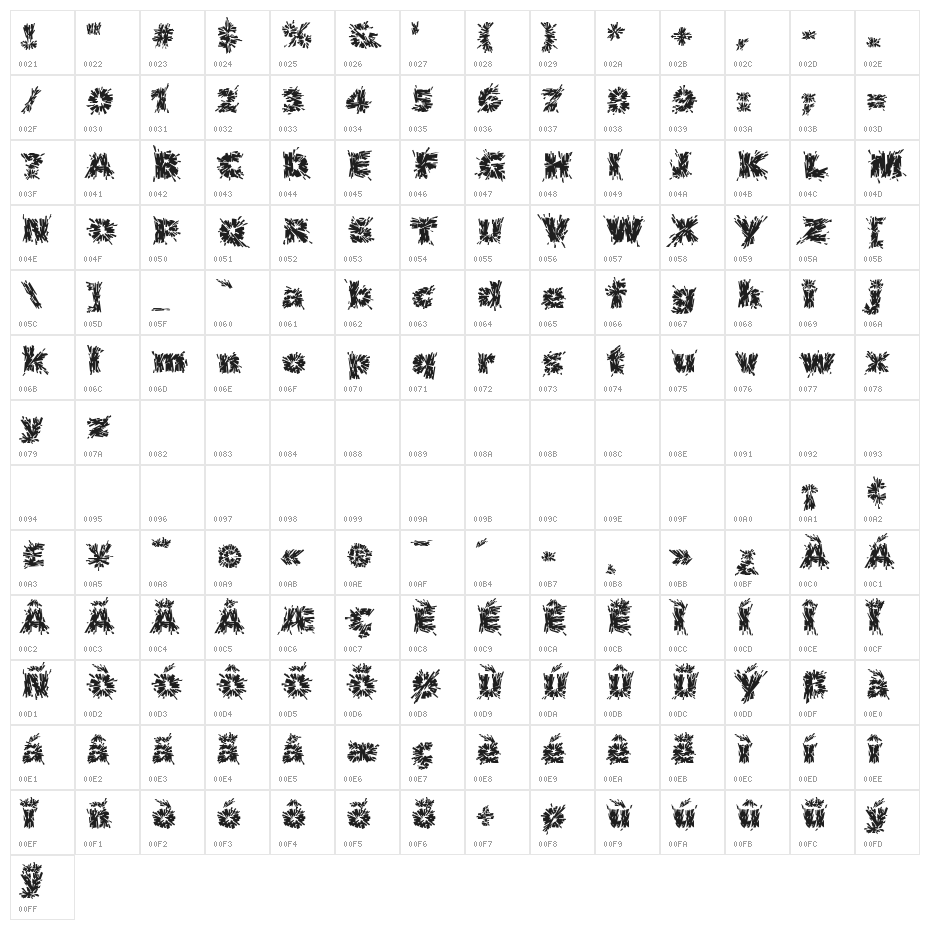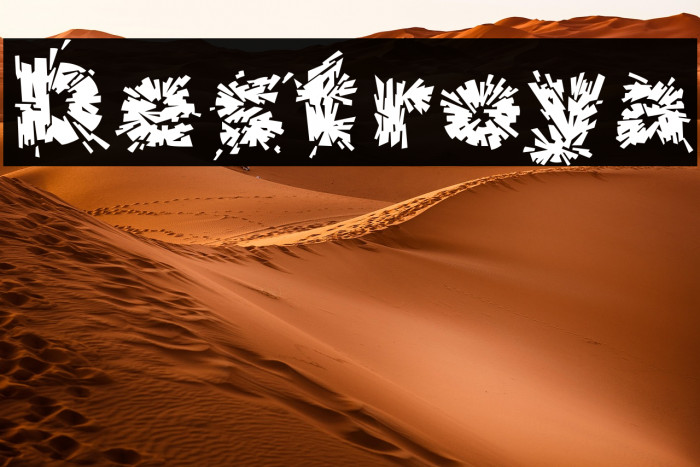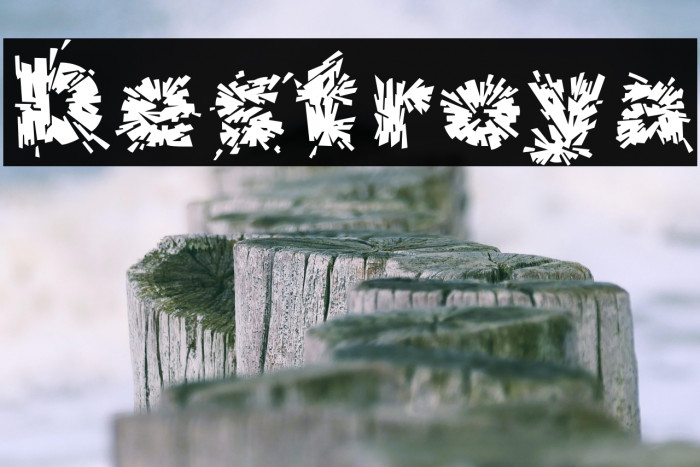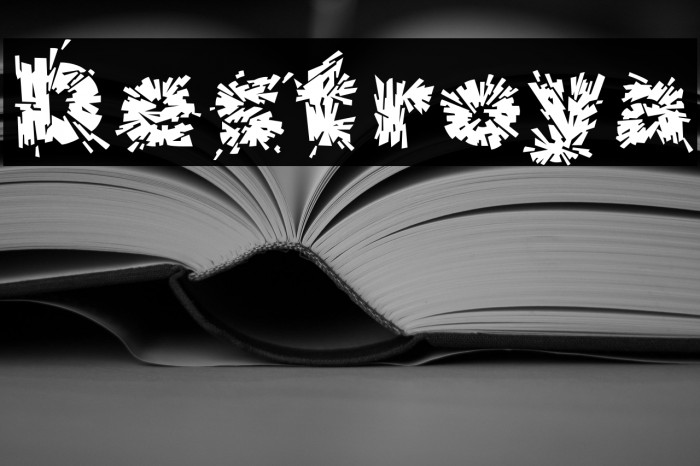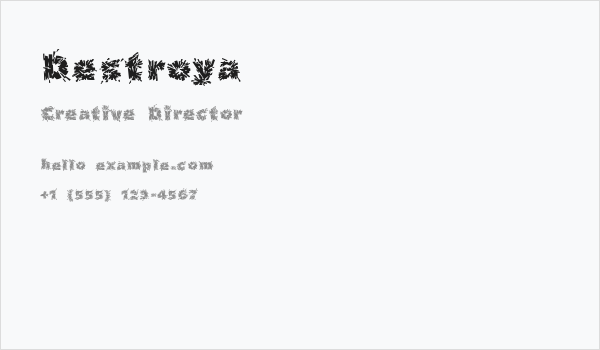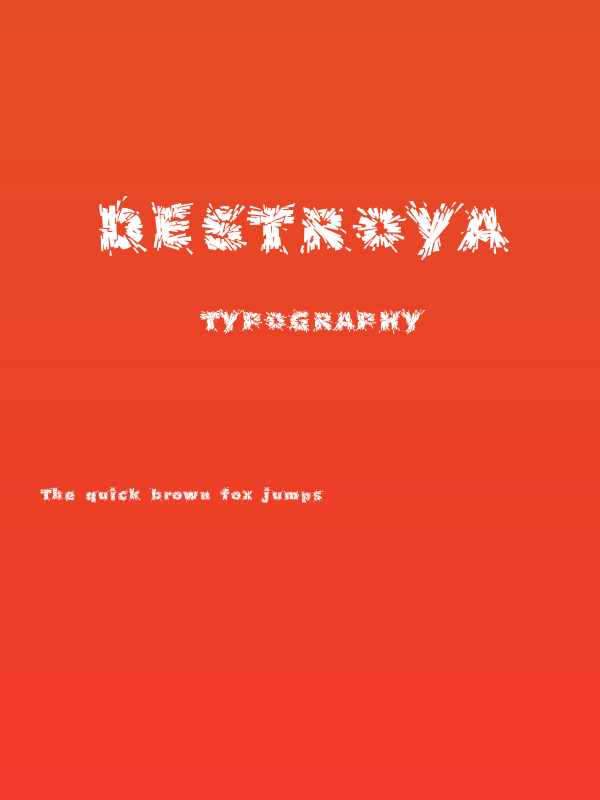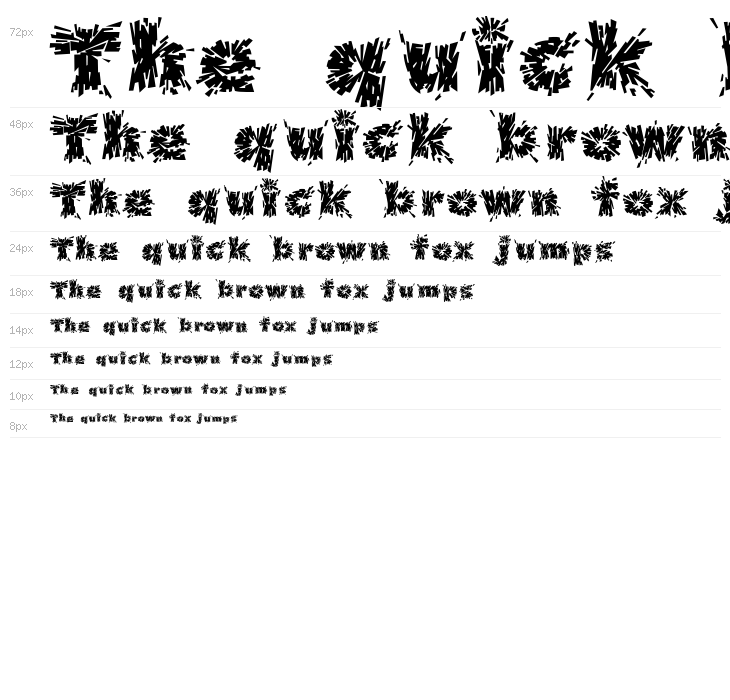
Destroya Font
Destroya Description
This font is a bold and dynamic display typeface characterized by its chaotic and explosive design. Each character appears as if it is constructed from a cluster of sharp, jagged shards, giving it a sense of movement and energy. The irregular shapes and varying line thicknesses create a striking visual impact, making it ideal for attention-grabbing headlines or artistic projects. Despite its chaotic appearance, the characters remain legible, maintaining a balance between creativity and functionality.
| Overall Style | Modern, Edgy |
| Proposed Projects | Ideal for music album covers, event posters, video game titles, or any project requiring a bold, edgy aesthetic. |